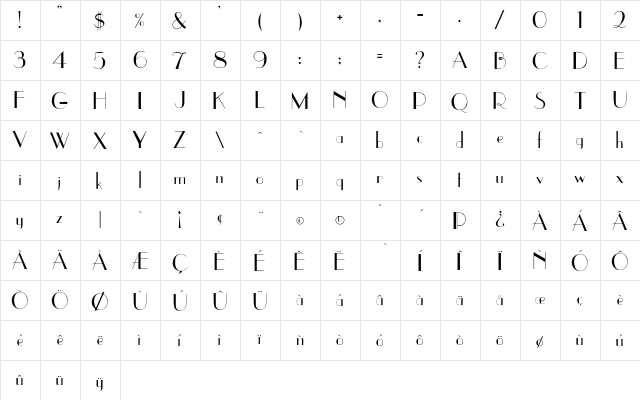
Upper-EastSide Regular
Design Context for Upper-EastSide Typeface
Upper-EastSide is a composed and adaptable typeface that performs quietly and consistently across a wide range of design contexts.